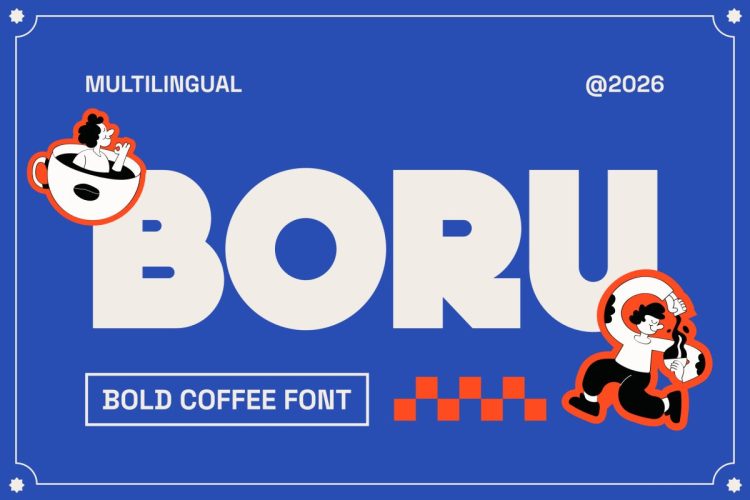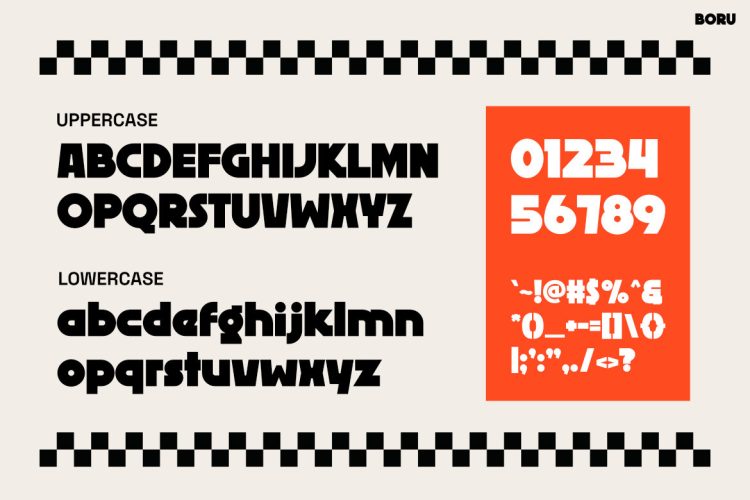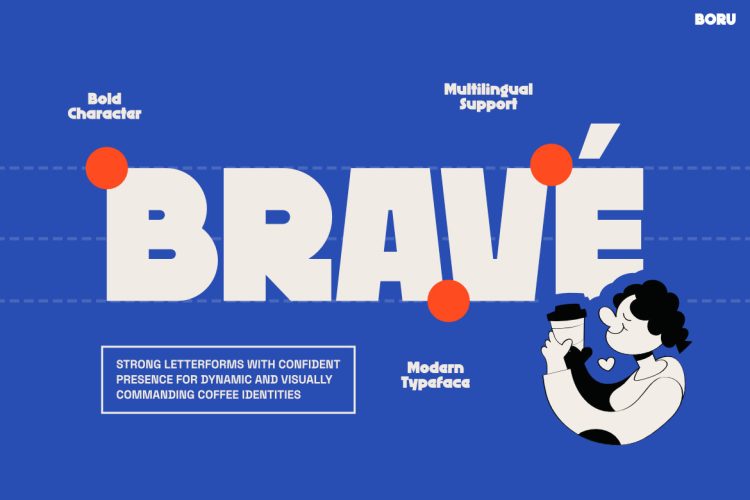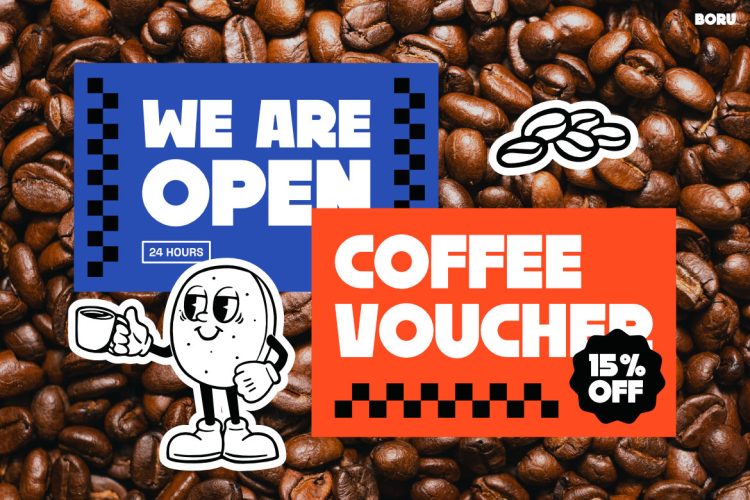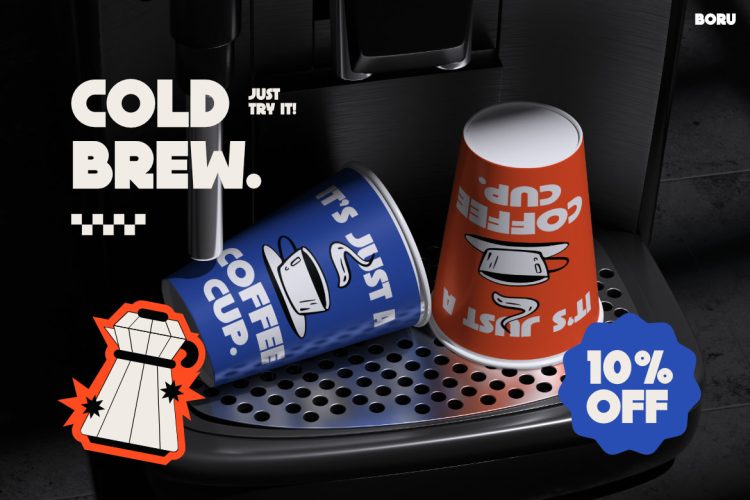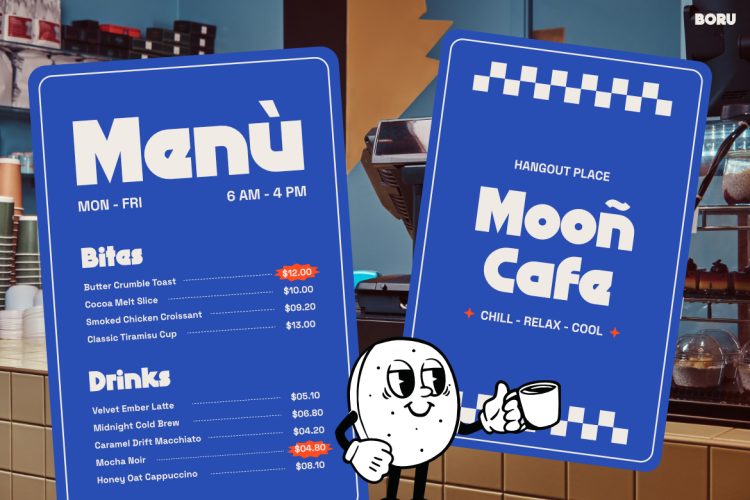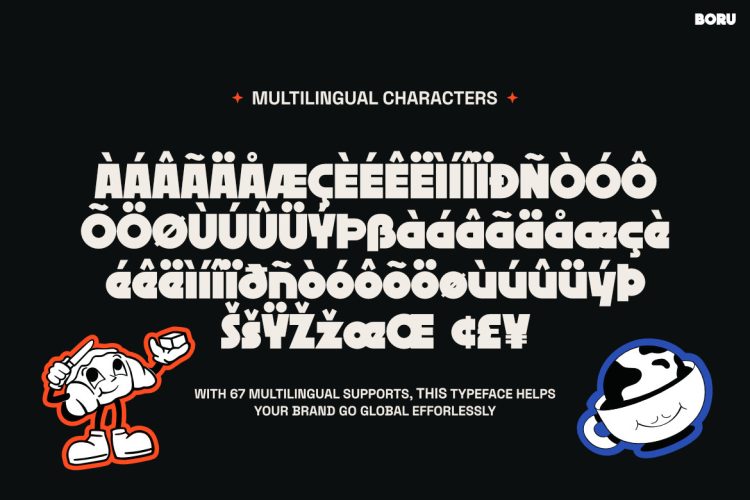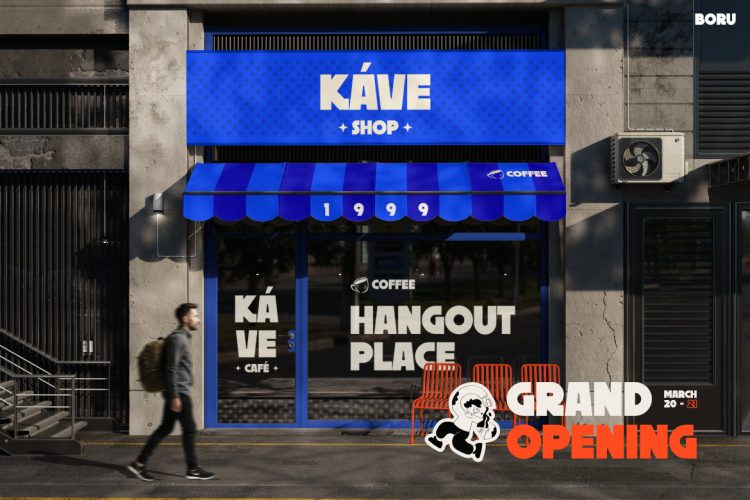
BORUโ Bold Modern Typeface
Instagram Font BORU is a bold, energetic display font crafted to capture attention instantly while delivering a strong visual identity. Designed with chunky letterforms, playful proportions, and high-contrast styling, this font stands out in any layout. Moreover, its modern-retro aesthetic blends perfectly with contemporary branding trends, while still keeping a fun and approachable vibe. Each character feels alive, making your typography not only readable but also expressive. In addition, the font supports 67 languages, ensuring global usability for diverse creative projects. As a result, BORU becomes a versatile choice for designers who want impact without sacrificing clarity.
Instagram Font BORU brings a vibrant and dynamic tone to your designs. Not only does it offer bold shapes and confident strokes, but it also enhances readability across both digital and print media. Furthermore, its playful details and rounded edges make it perfect for creating friendly yet powerful visuals. Whether you are working on branding, packaging, or promotional materials, this font delivers strong personality and consistency. At the same time, its structured geometry ensures a clean and professional finish, making it suitable for both casual and commercial use.
Instagram Font BORU Perfect For
This font is ideal for coffee branding, cafรฉ menus, packaging design, posters, and social media graphics. Additionally, it works perfectly for streetwear brands, lifestyle products, and modern advertising campaigns. If you are targeting a youthful and energetic audience, BORU will amplify your message effectively. Likewise, it suits creative entrepreneurs, graphic designers, and branding specialists who want to build a bold and memorable identity.